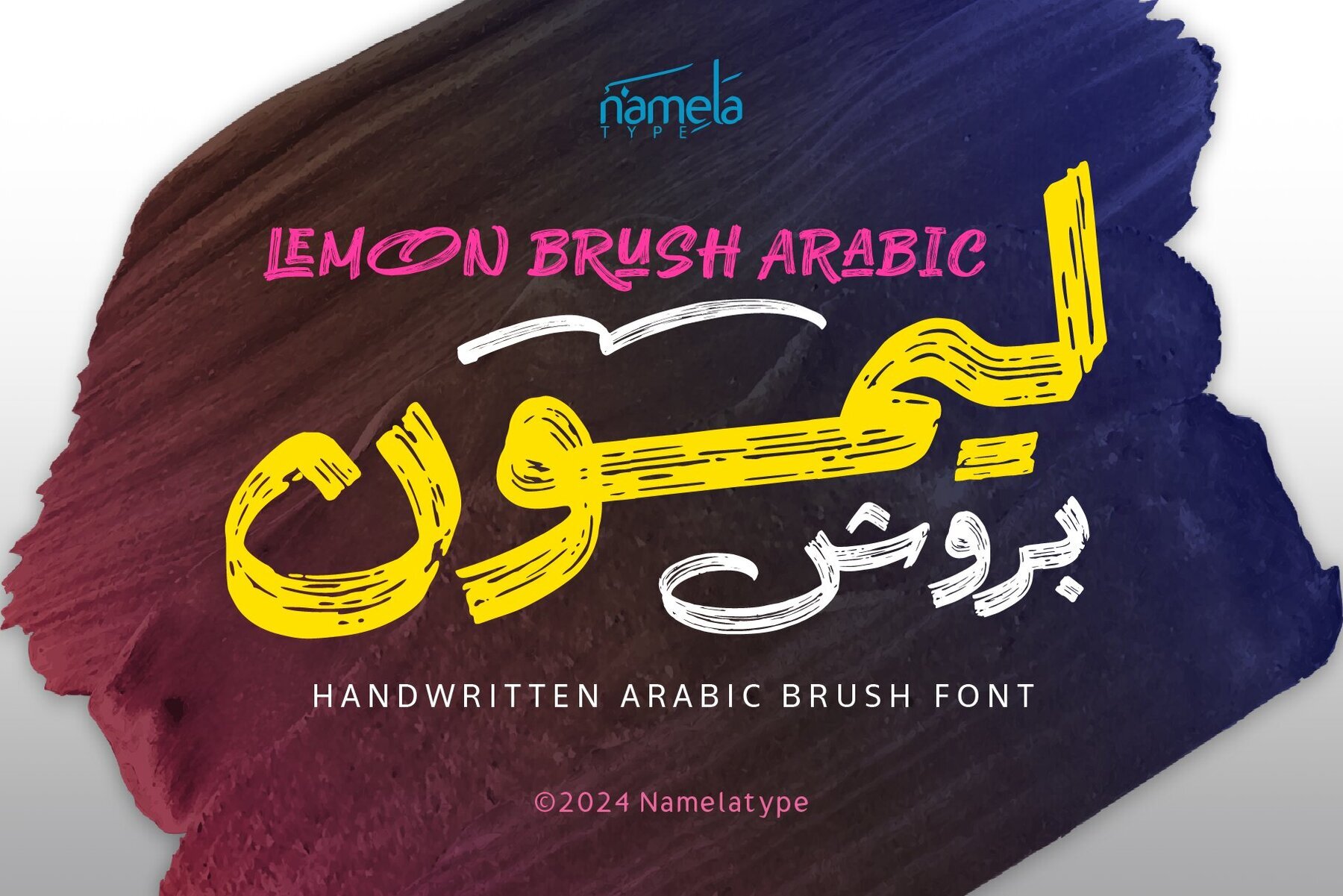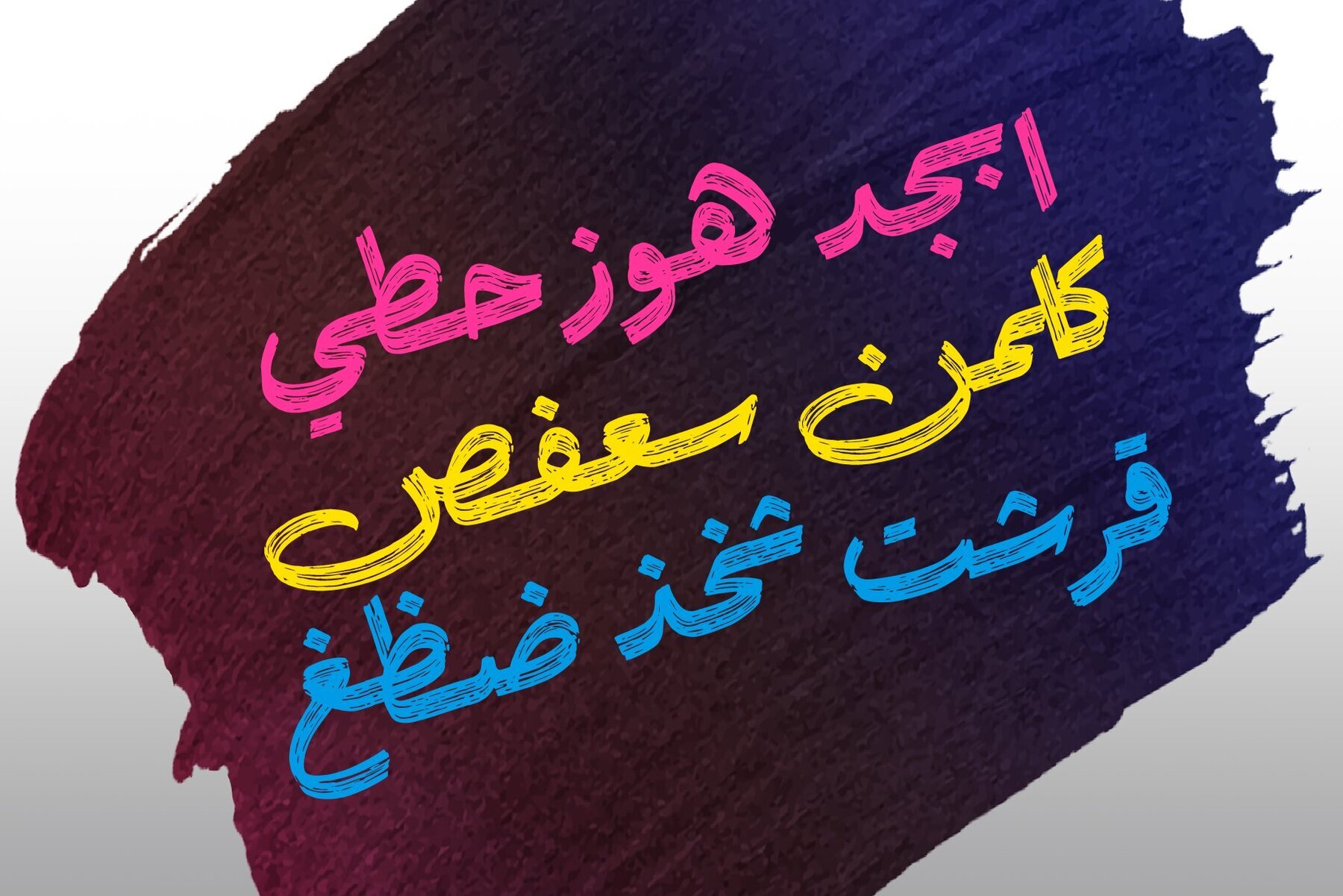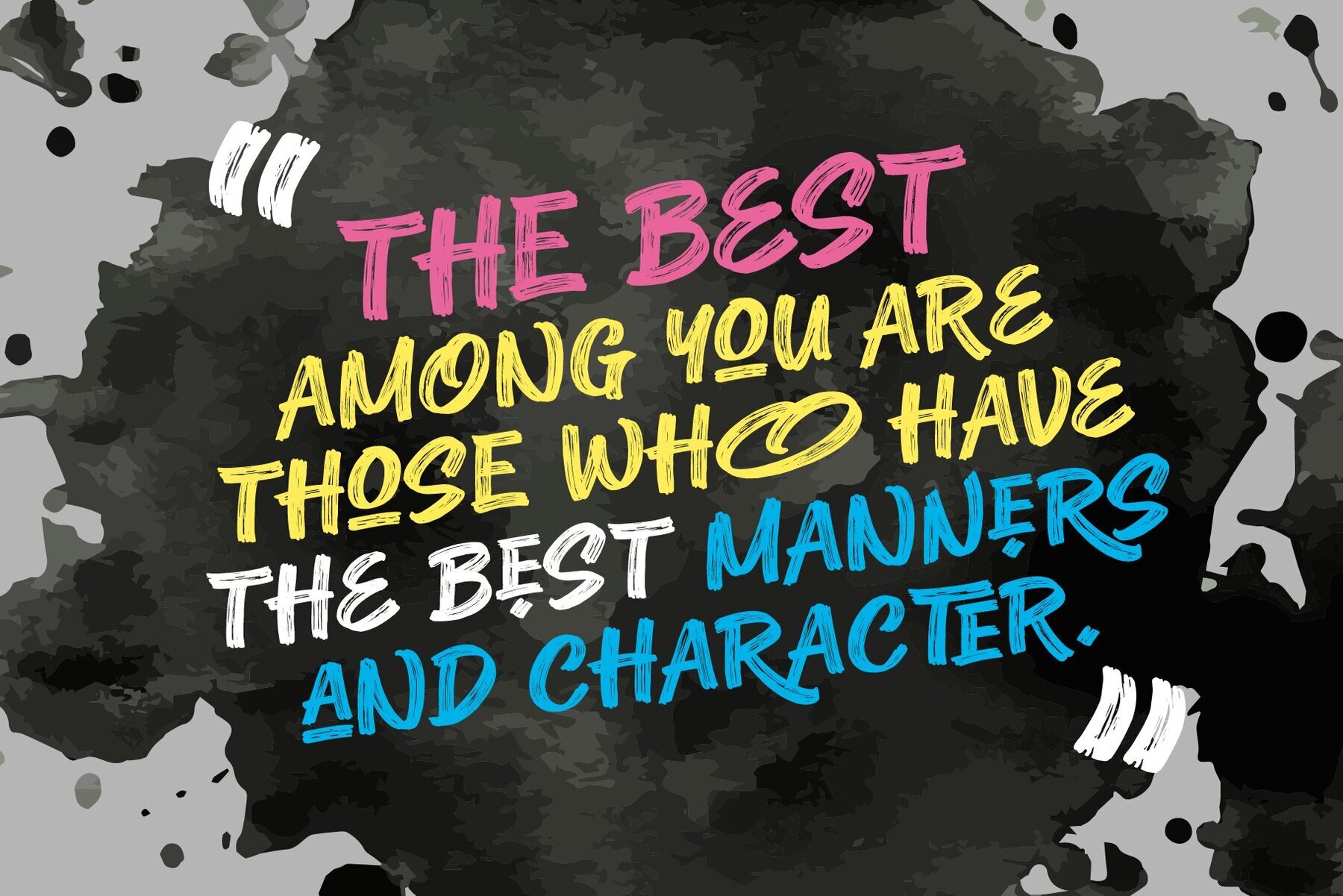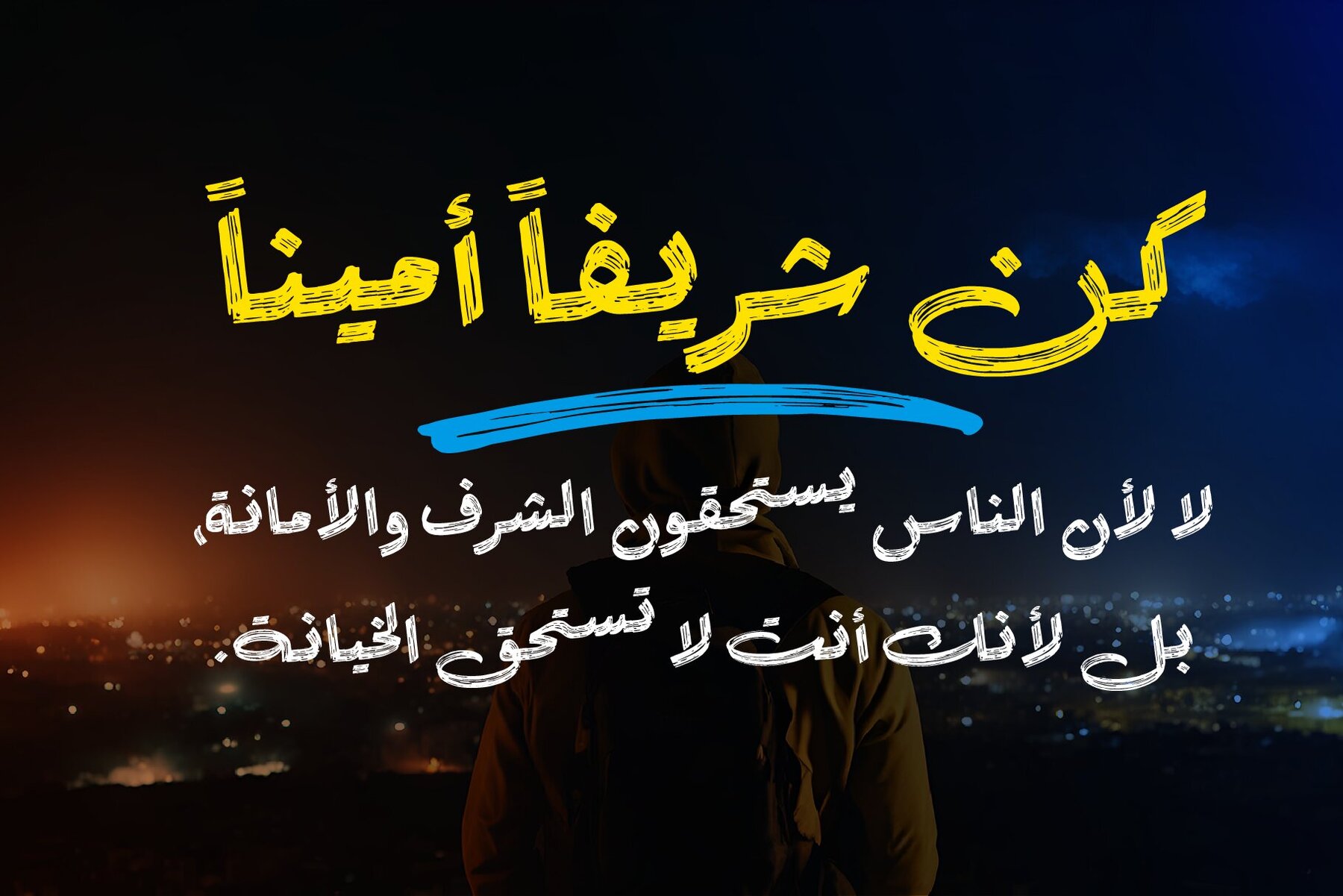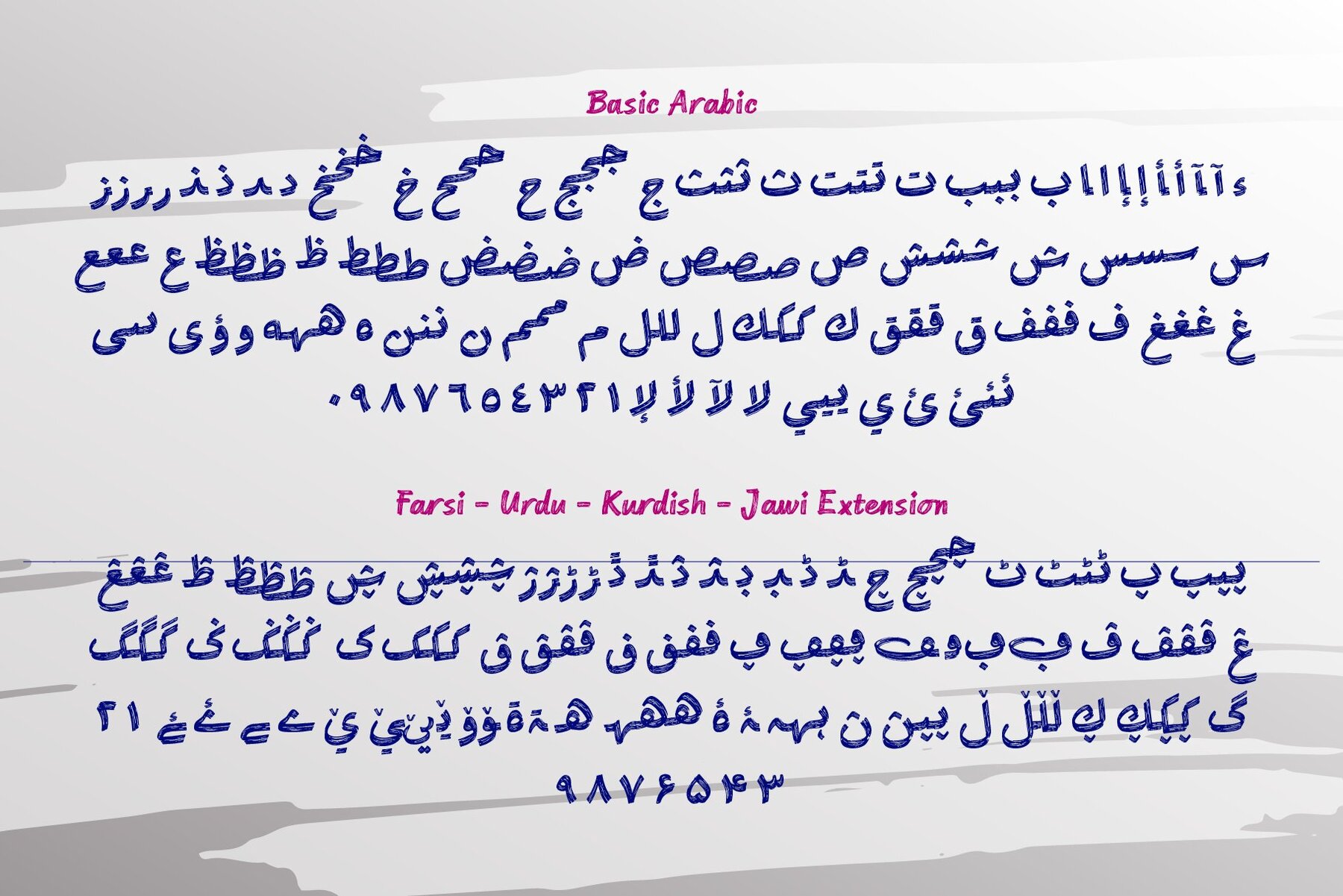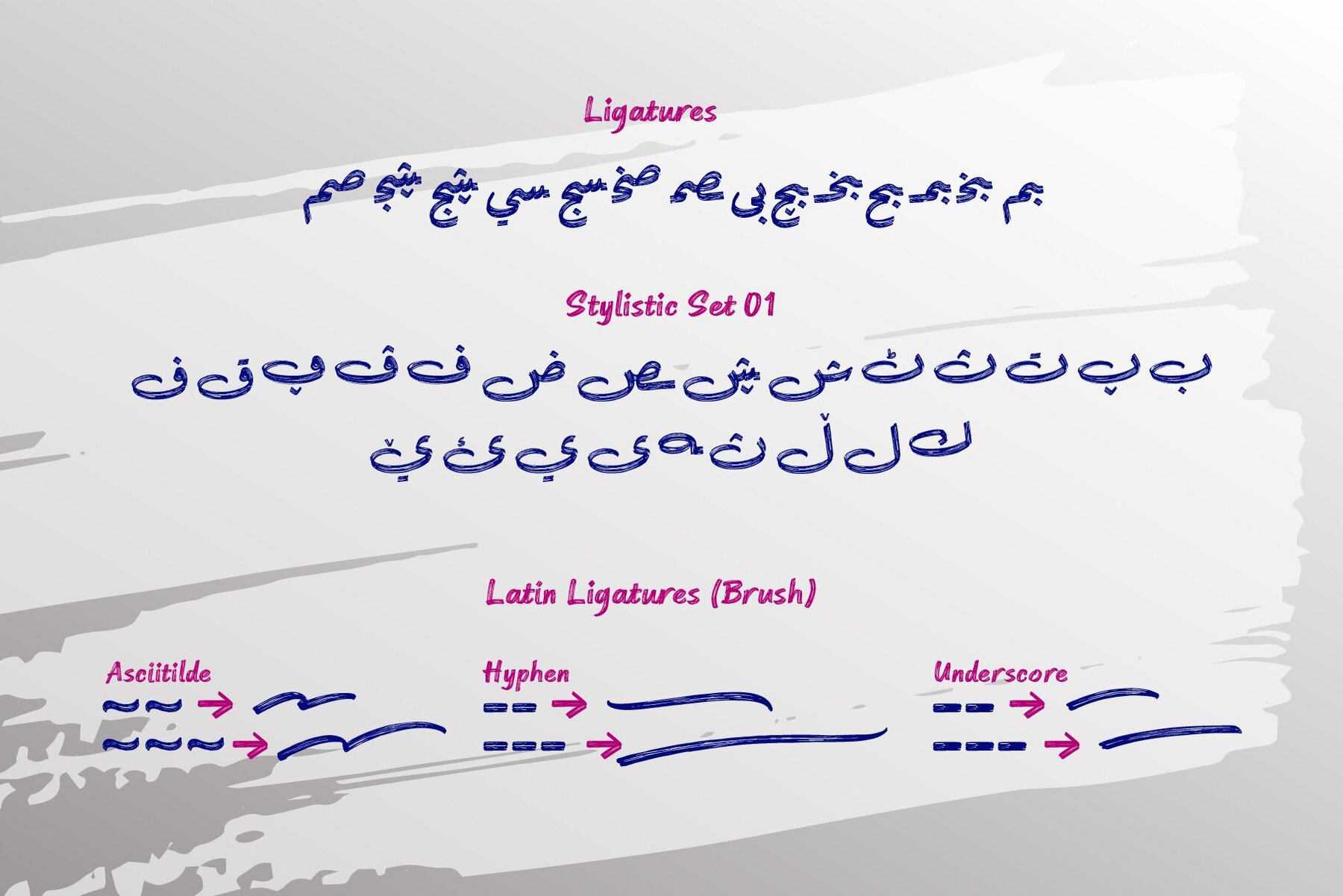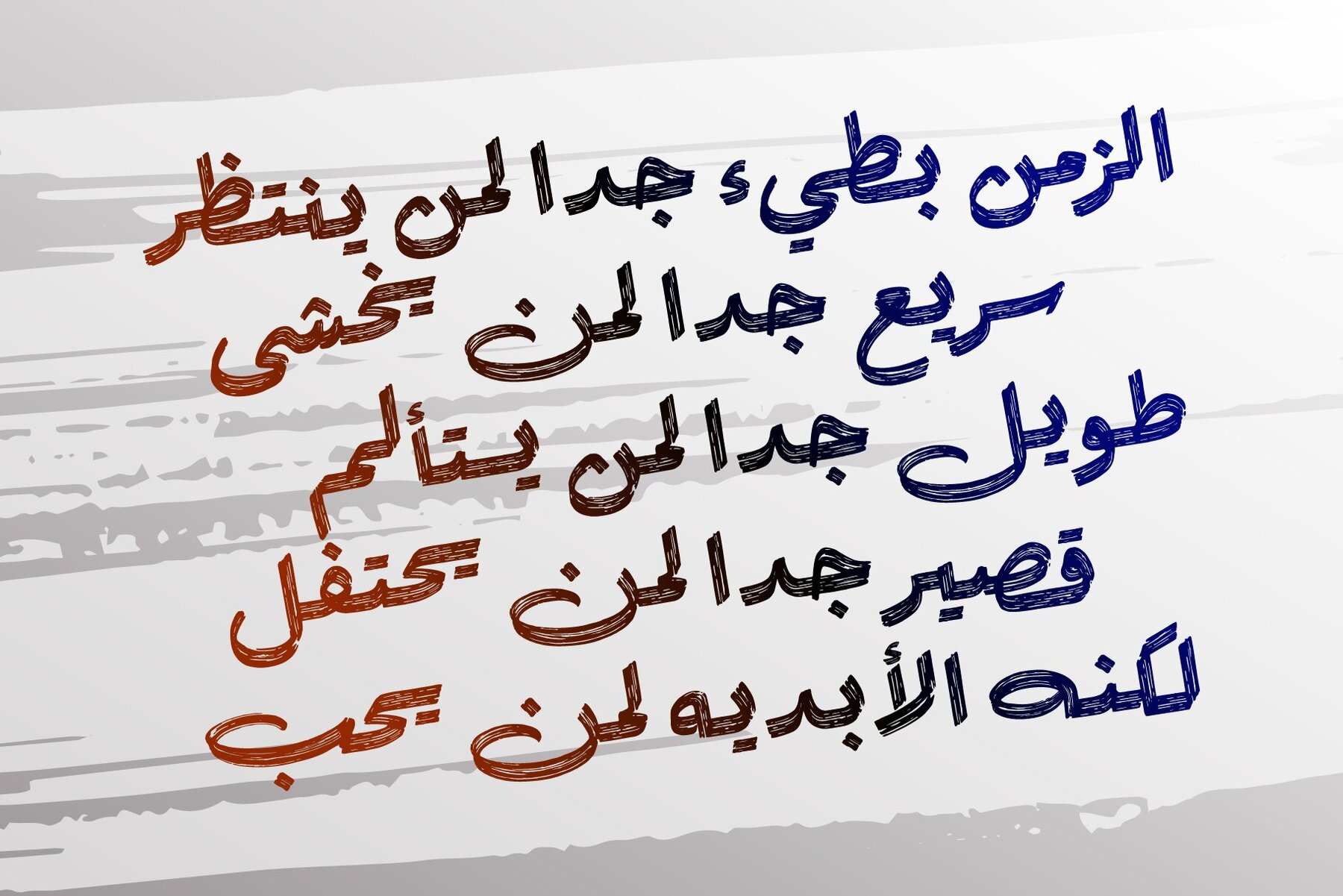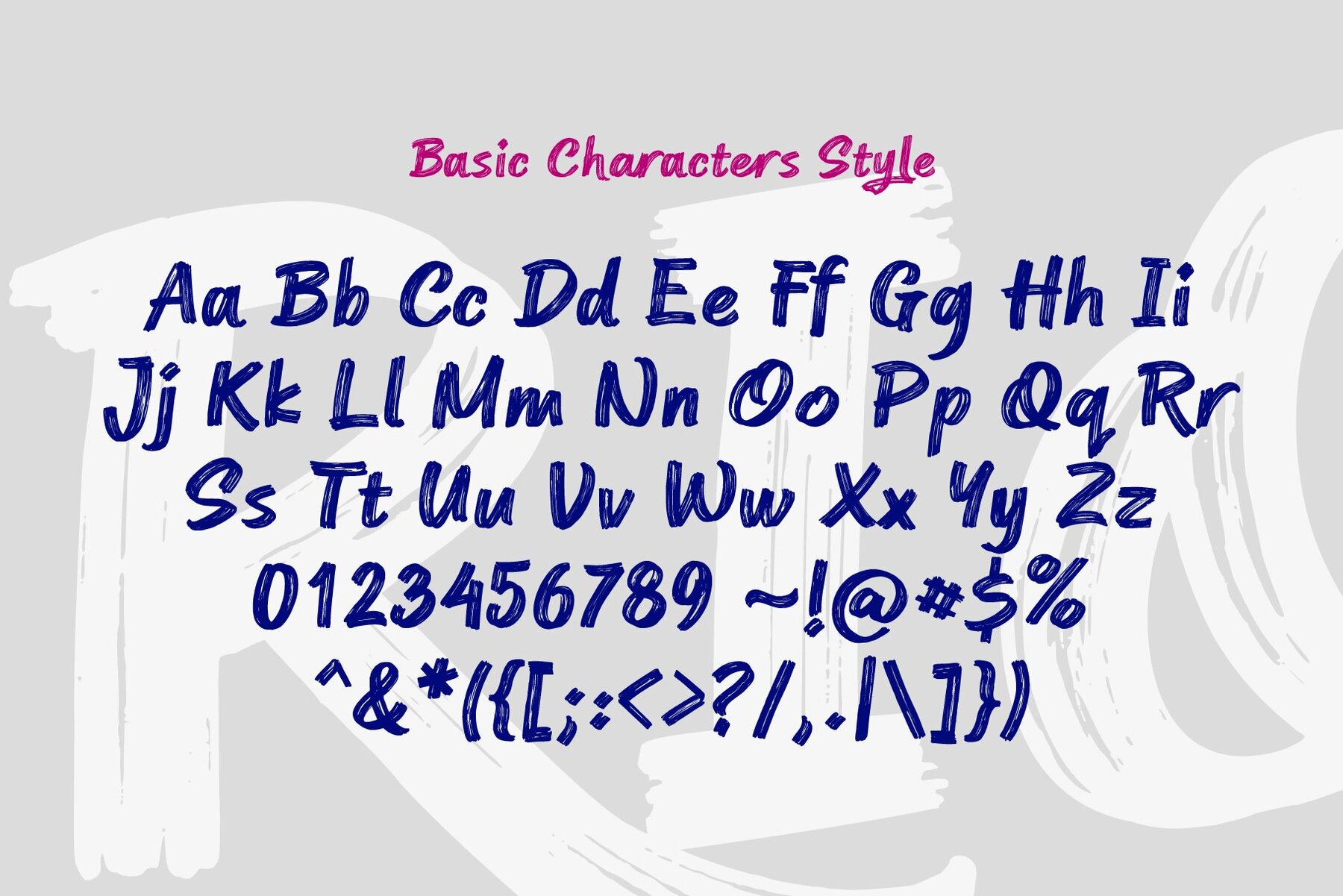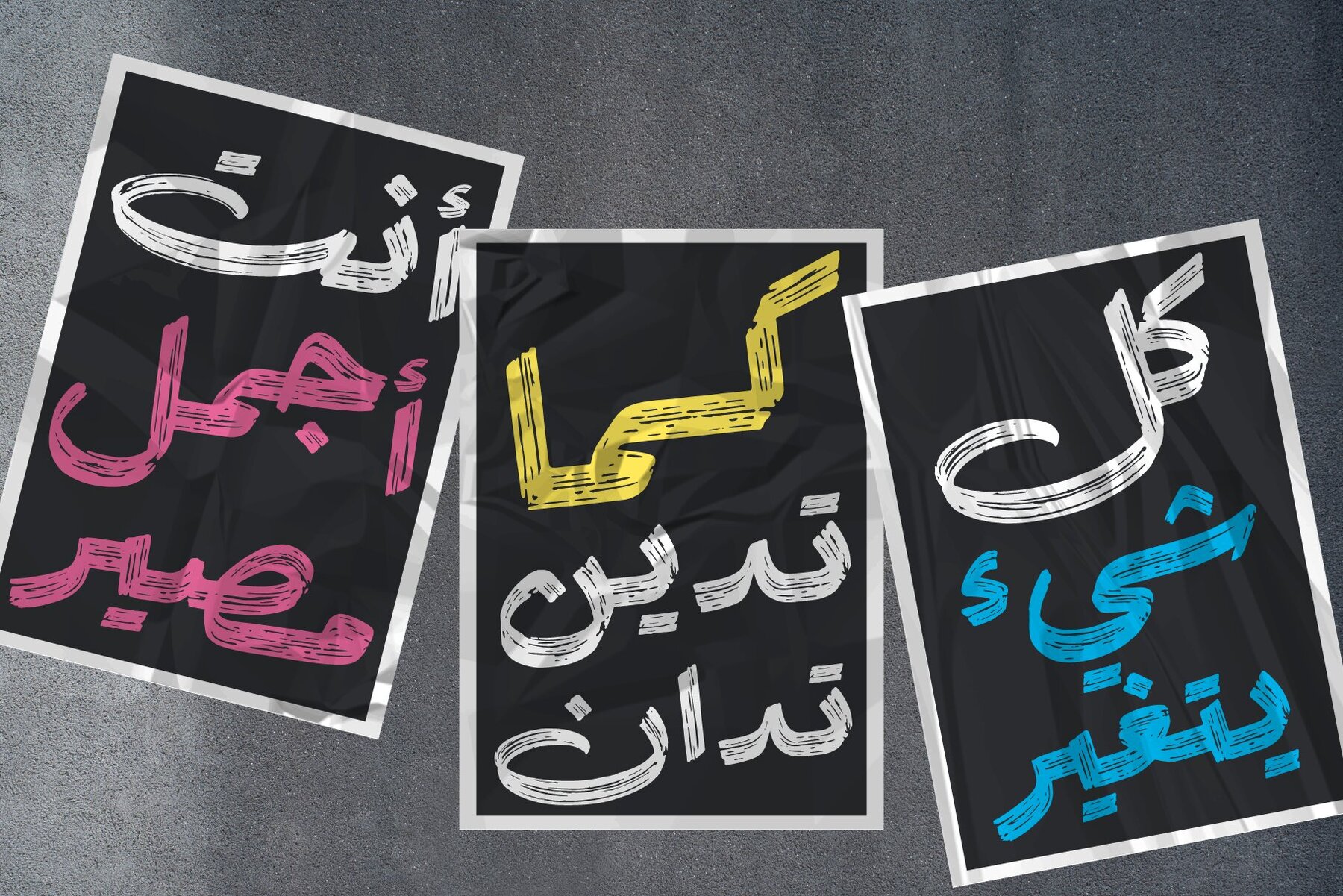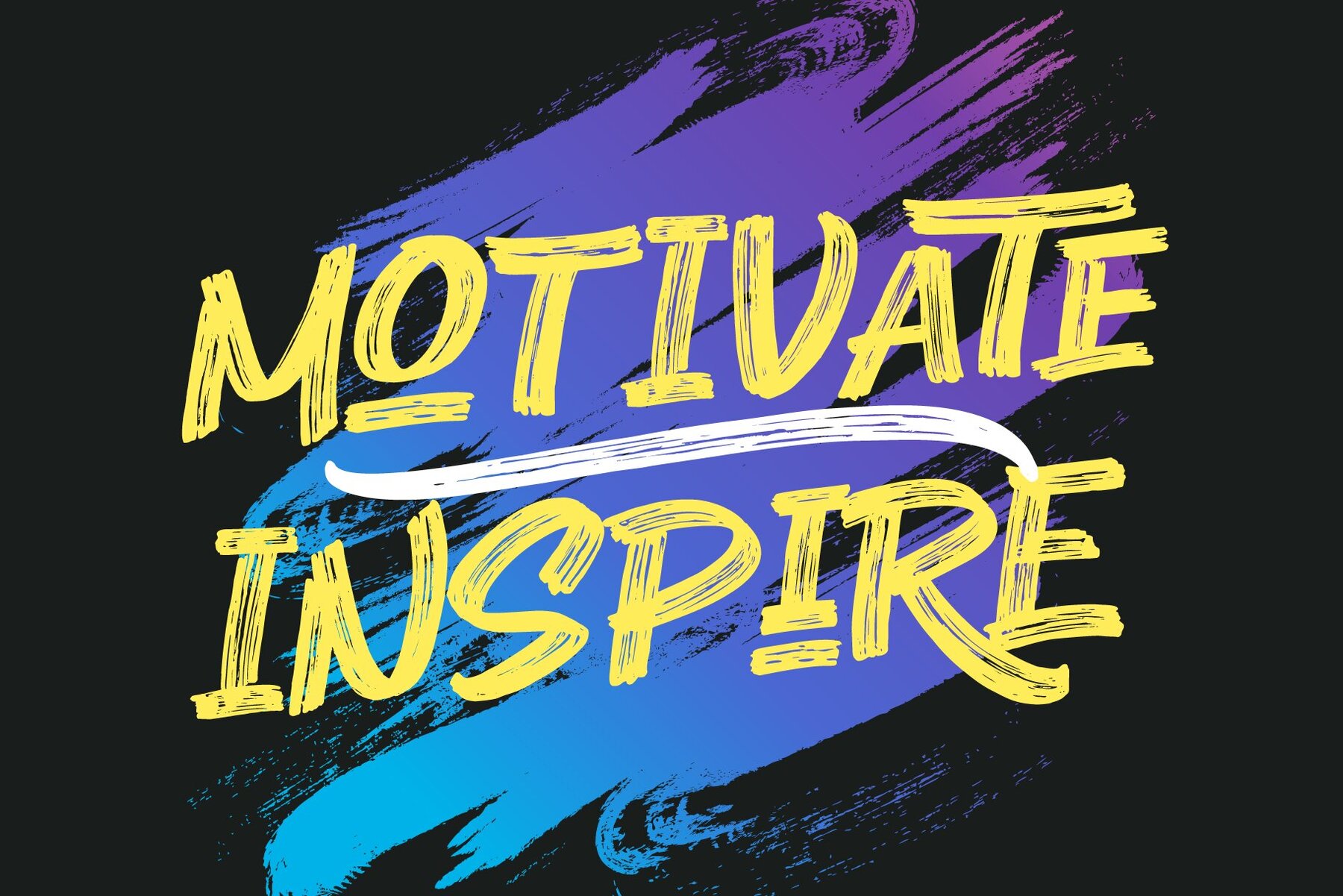
Lemon brush Font
Lemon Brush Regular
Lemon Brush Arabic
Lemon Brush is a handwritten brush font that uses a dry brush stroke style, giving it a nice texture and flow. Lemon Brush has many alternates and ligatures to make it look more like natural handwriting. The Arabic' style refers to Riqah style. This is a perfect font choice for header text, poster designs, logos, product designs, merchandise, album covers, and much more.